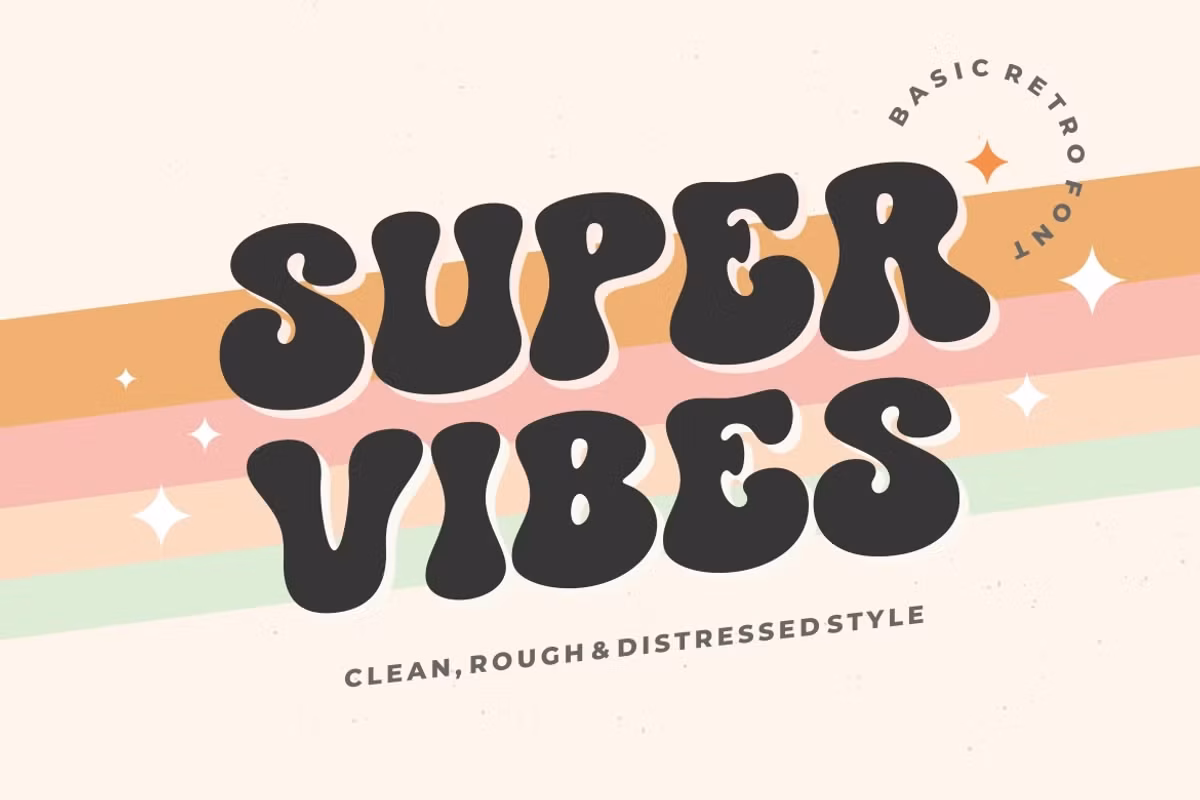
Super Vibes - Retro Groovy Style Free Download
Super Vibes Font - Retro Groovy Style Free Download
Super Vibes Font - Retro Groovy Style Free Download is a bold and funky typeface inspired by the vibrant design trends of the 1960s and 1970s. With its rounded edges, playful letterforms, and strong retro influence, this font is perfect for creating eye-catching headlines, posters, logos, and branding projects that need a fun and nostalgic touch.
Its groovy and relaxed vibe makes it ideal for retro-themed designs, music-related projects, event posters, or any creative work where you want to evoke a sense of warmth and energy. Super Vibes brings a unique and joyful aesthetic to your typography, perfect for projects that aim to stand out and feel playful.